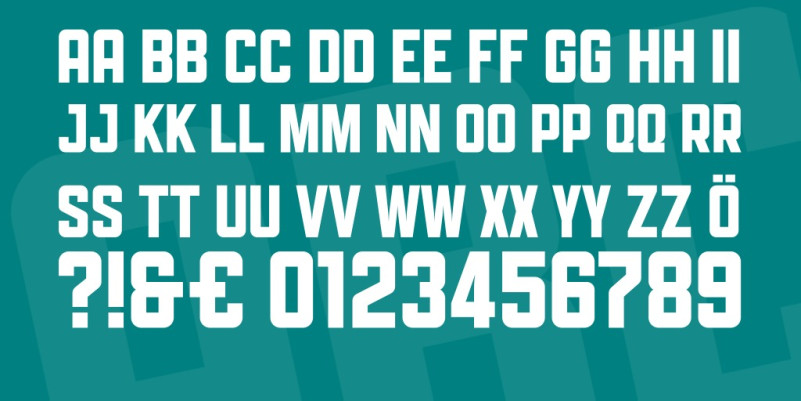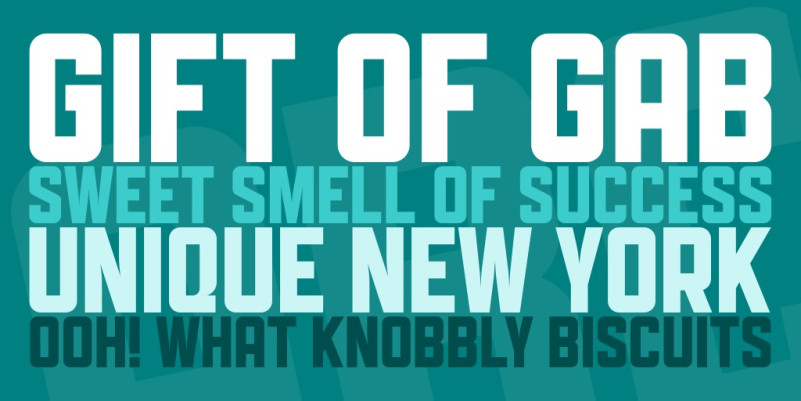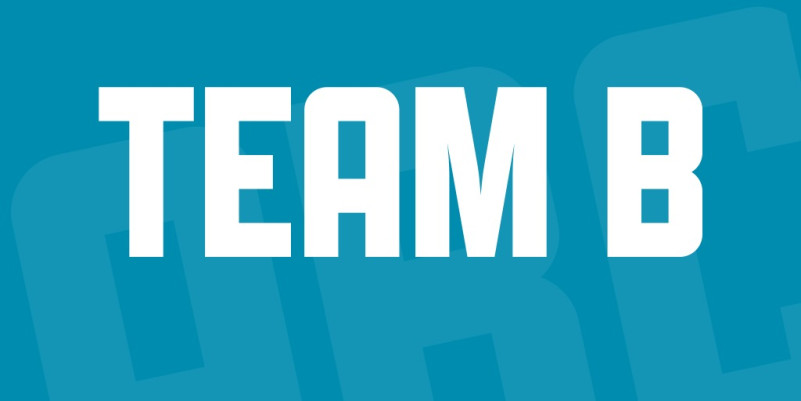
Team B Sans Serif Font, It can easily be matched to an incredibly large set of projects, so add it to your creative ideas and notice how it makes them stand out!